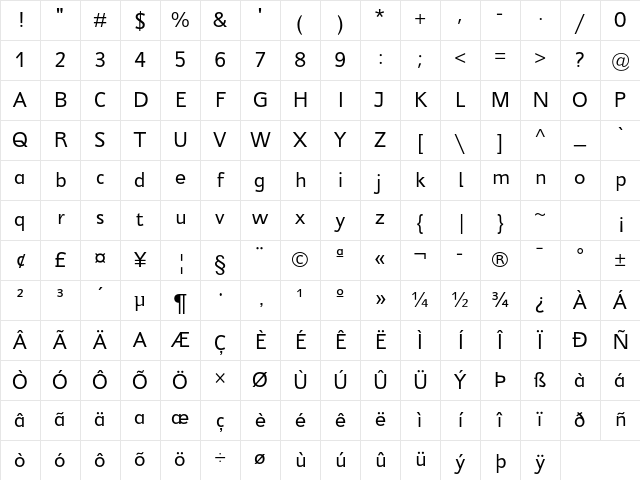
Jeunesse Sans Std Regular
Complete Jeunesse Sans Std Regular glyph index. Displaying only characters natively supported by Jeunesse Sans Std Regular font.
Design Context for Jeunesse Sans Std
Jeunesse Sans Std is a composed and adaptable typeface that performs quietly and consistently across a wide range of design contexts.
Pro Tip: Use Jeunesse Sans Std in both headline and body roles to test its range before committing to a single application.